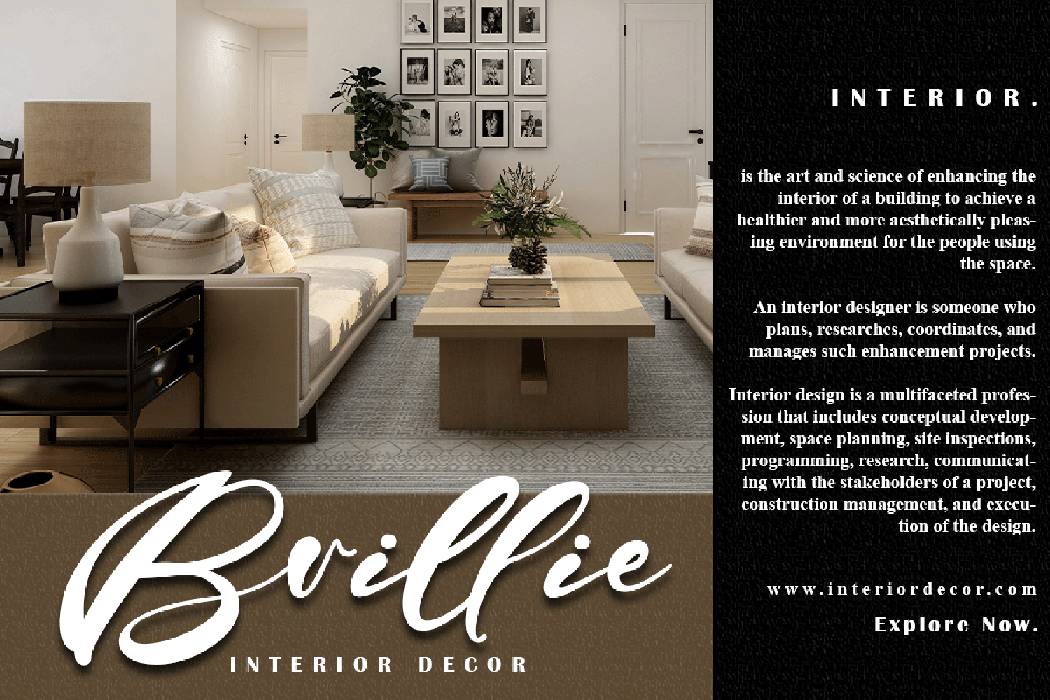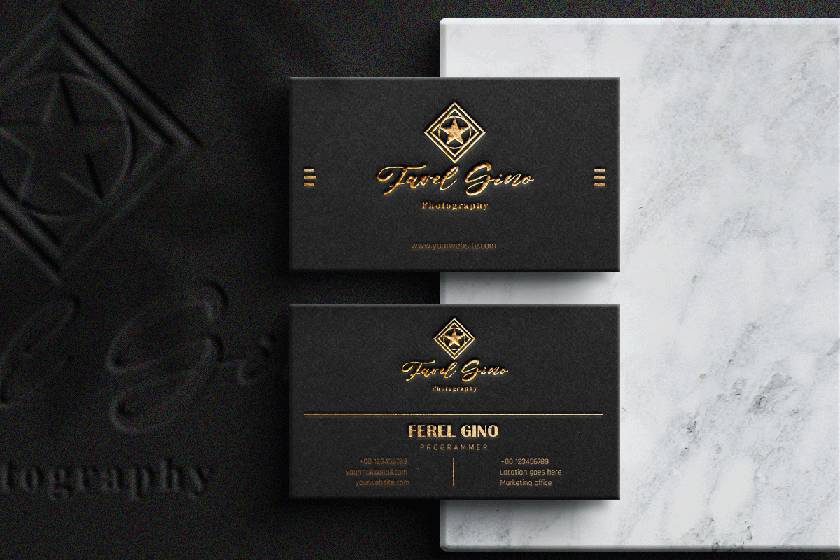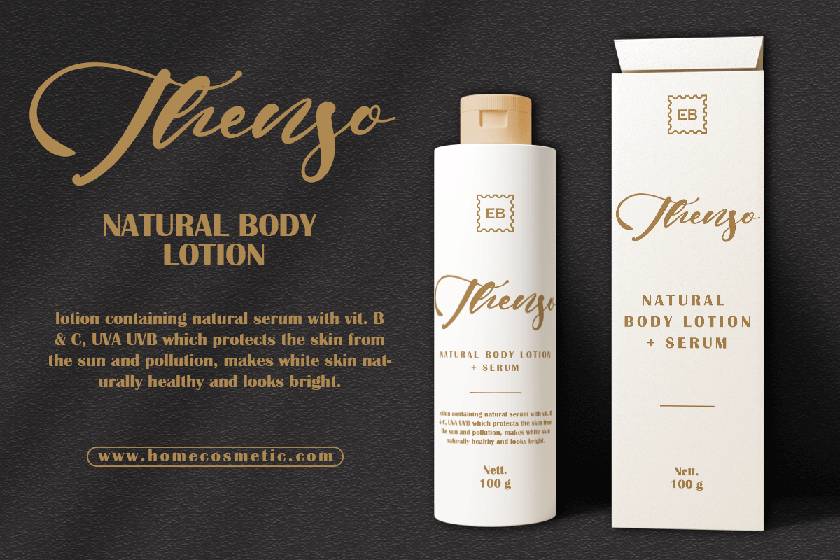
Erica Gavin is an elegant and flowing script font that captures a handwritten, calligraphic style with smooth, connected strokes and a lively personality. Its moderate weight and graceful curves make it ideal for adding a personal, sophisticated touch to wedding invitations, branding, and artistic designs where a warm, stylish feel is desired. This font works best in display uses such as logos and headlines, where its intricate details can shine and bring a sense of creativity and charm.
Erica Gavin Font
About Erica Gavin Font
| Font family | Erica Gavin Font |